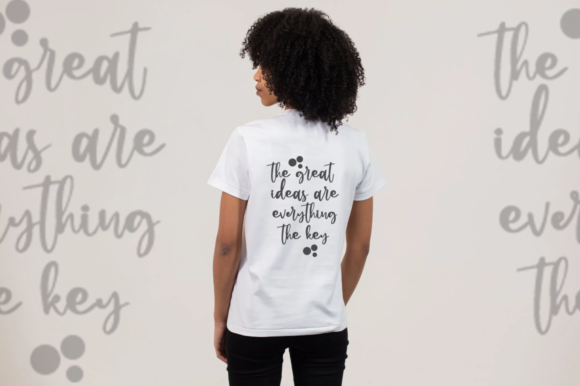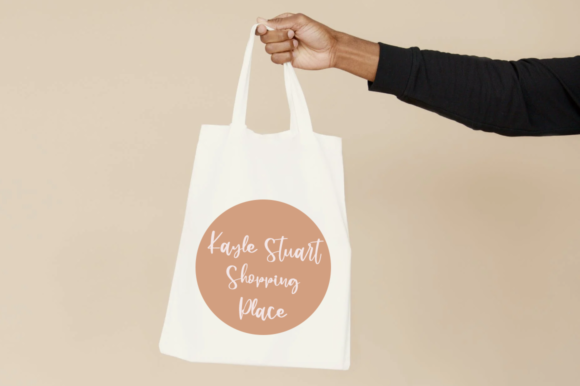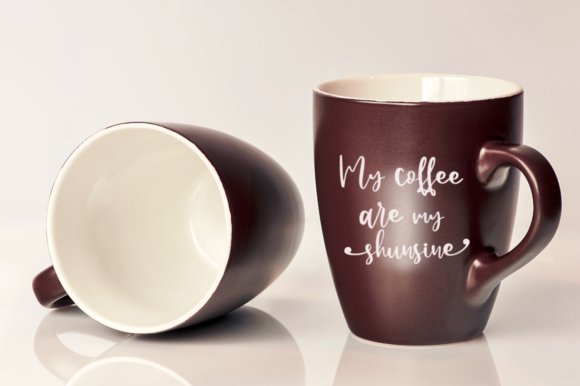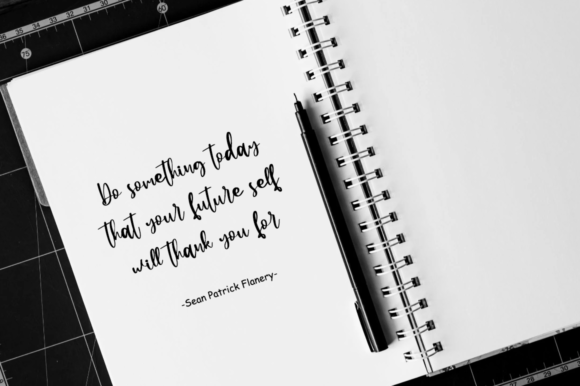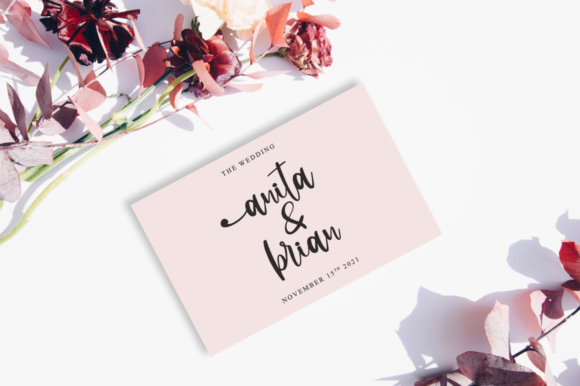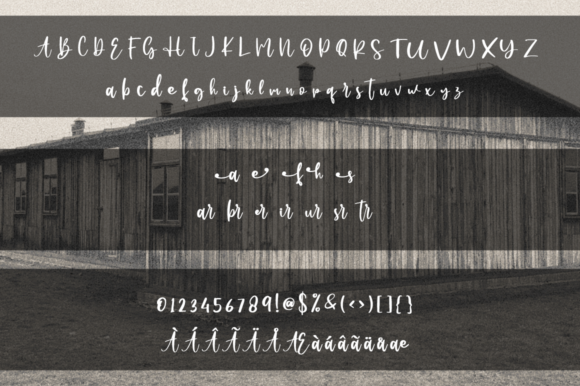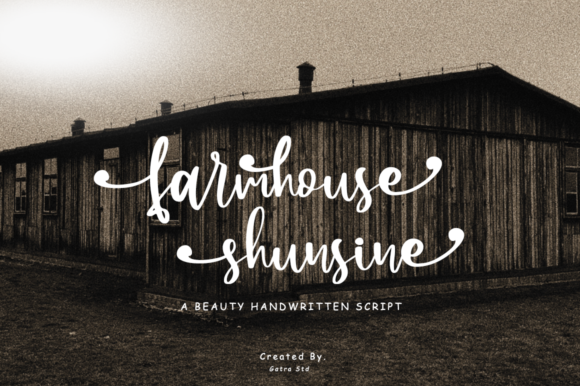
Discover the Charm of Farmhouse Shunsine Font: Elevate Your Designs with a Timeless Handwritten Style
Are you a designer, crafter, or DIY enthusiast looking for a font that adds a touch of warmth and personality to your projects? Look no further than Farmhouse Shunsine, a lovely and timeless handwritten font that’s perfect for creating eye-catching logos, branding, and quotes. With its unique and beautiful touch, this font is sure to make your designs come alive!
Handwritten fonts have a way of adding a personal touch to any design. They evoke a sense of nostalgia and warmth, making them perfect for projects that require a human touch. Farmhouse Shunsine is no exception. This gorgeous font is carefully crafted to resemble the imperfections and uniqueness of handwritten text, making it perfect for a wide range of design applications.
What Makes Farmhouse Shunsine Special?
So, what sets Farmhouse Shunsine apart from other fonts? Here are just a few reasons why this font is a must-have for designers and crafters:
- Unique and Beautiful Touch: Every letter in Farmhouse Shunsine has a unique and beautiful touch, making it perfect for creating eye-catching designs that stand out from the crowd.
- Timeless Style: This font has a timeless quality that ensures it will never go out of style. Whether you’re creating a logo, branding, or quote, Farmhouse Shunsine is a versatile choice that will always look great.
- Perfect for Logos and Branding: With its distinctive and memorable style, Farmhouse Shunsine is perfect for creating logos and branding that leave a lasting impression.
- Easy to Read: Despite its handwritten style, Farmhouse Shunsine is easy to read, making it perfect for use in quotes, posters, and other designs where readability is key.
How to Use Farmhouse Shunsine in Your Designs
Farmhouse Shunsine is a versatile font that can be used in a wide range of design applications. Here are just a few ideas to get you started:
- Logos and Branding: Use Farmhouse Shunsine to create a unique and memorable logo that sets your brand apart.
- Quotes and Posters: Add a touch of elegance and sophistication to your quotes and posters with Farmhouse Shunsine.
- Stationery and Invitations: Use Farmhouse Shunsine to create beautiful stationery and invitations that are perfect for weddings, parties, and other special occasions.
- Digital Designs: Farmhouse Shunsine is perfect for use in digital designs, including social media graphics, blog posts, and website headers.
Tips for Getting the Most Out of Farmhouse Shunsine
To get the most out of Farmhouse Shunsine, here are a few tips to keep in mind:
- Experiment with Different Sizes: Farmhouse Shunsine looks great in a variety of sizes, so don’t be afraid to experiment to find the perfect size for your design.
- Pair with Other Fonts: Farmhouse Shunsine pairs well with a variety of other fonts, so try combining it with other fonts to create a unique and interesting design.
- Use in Combination with Images: Farmhouse Shunsine looks great when used in combination with images, so try incorporating it into your design to add an extra layer of interest.
Farmhouse Shunsine is a beautiful and versatile handwritten font that’s perfect for designers, crafters, and DIY enthusiasts. With its unique and beautiful touch, timeless style, and ease of use, this font is sure to become a favorite in your design toolkit. Whether you’re creating logos, branding, quotes, or other designs, Farmhouse Shunsine is a great choice that will help you create eye-catching and memorable designs that stand out from the crowd.